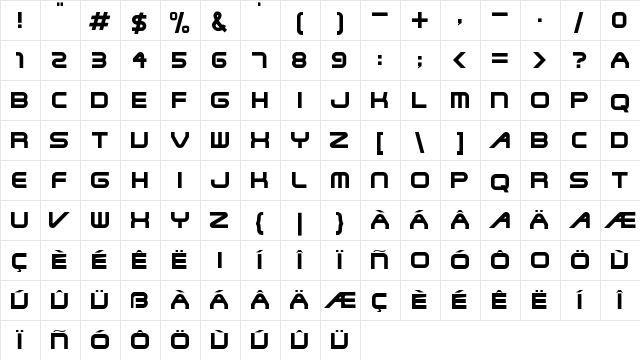
ShowShifter Body Regular
Design Context for ShowShifter Body Typeface
ShowShifter Body is a composed and adaptable typeface that performs quietly and consistently across a wide range of design contexts.
Pro Tip: Pair ShowShifter Body with a font of contrasting weight or personality to build a more expressive typographic hierarchy.